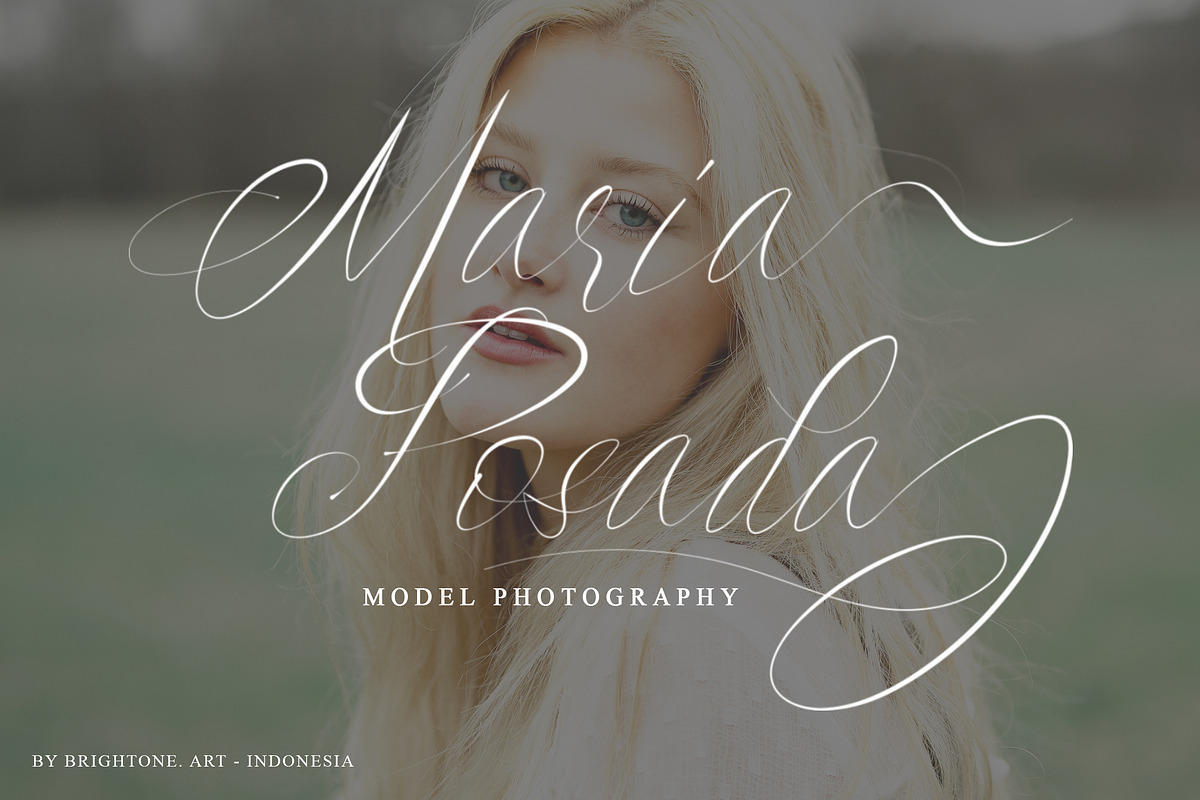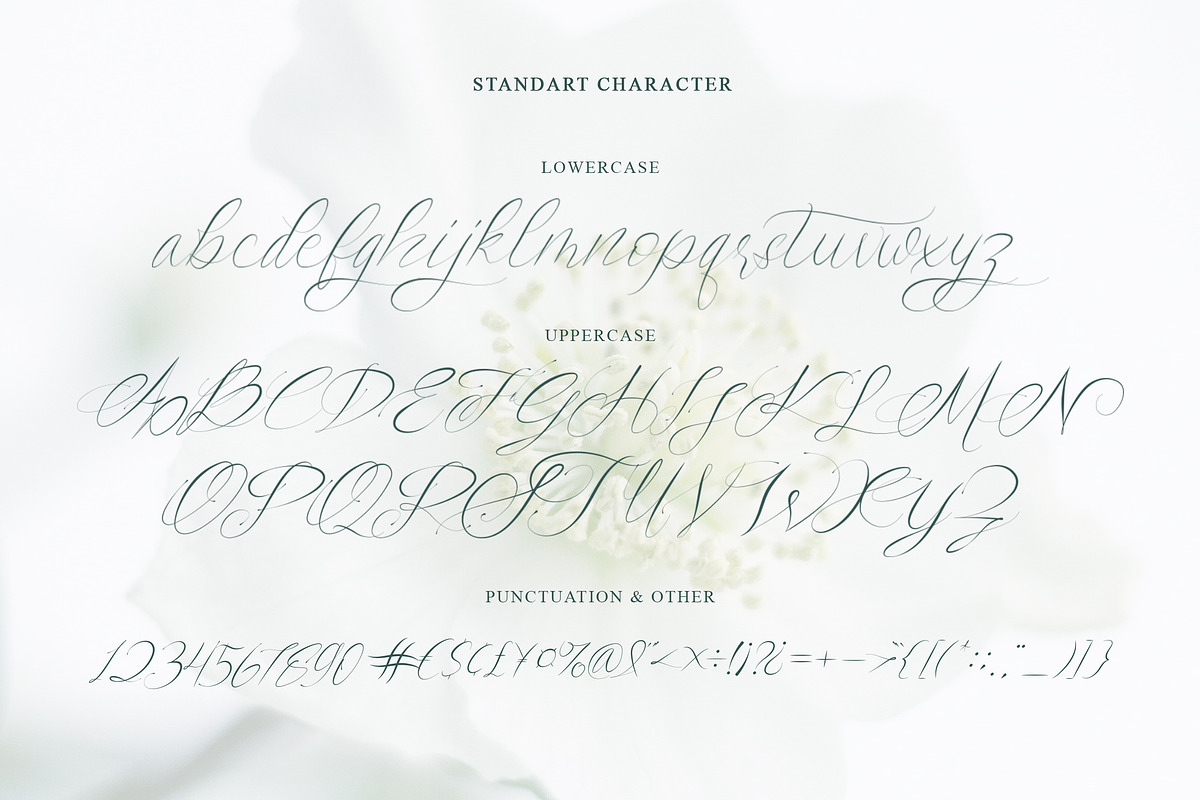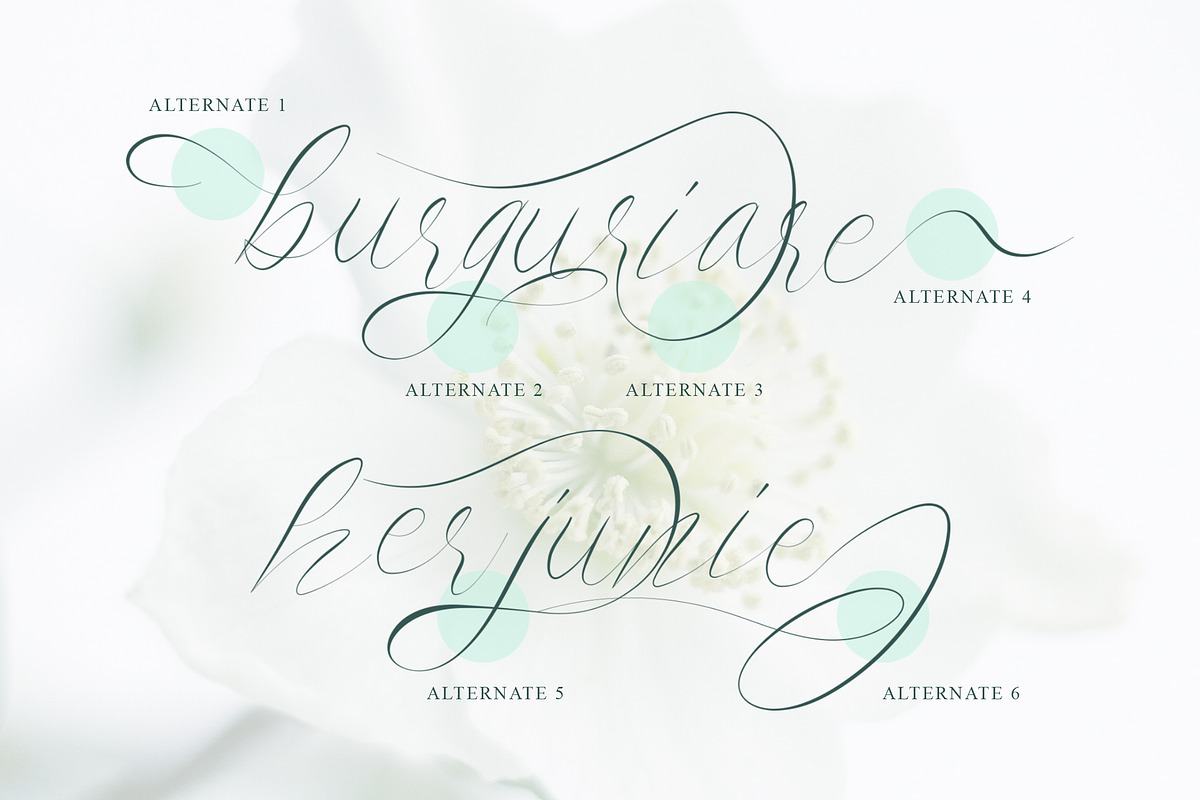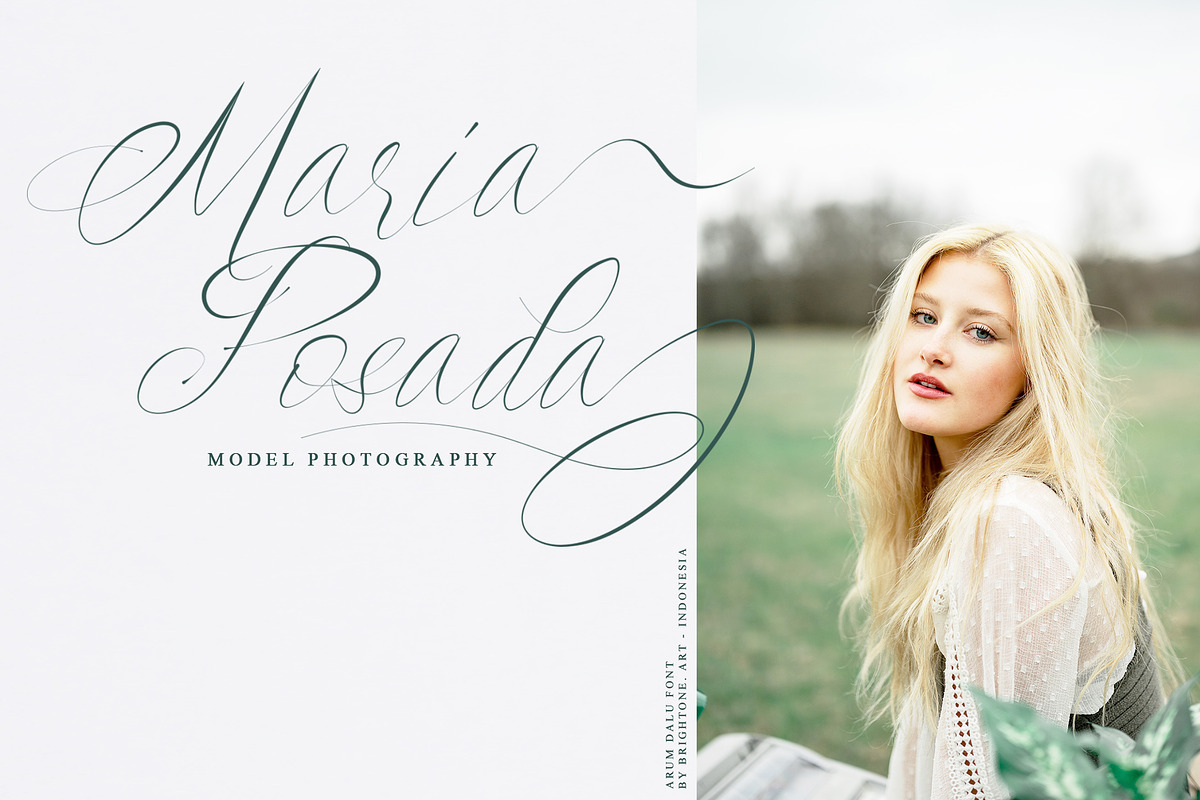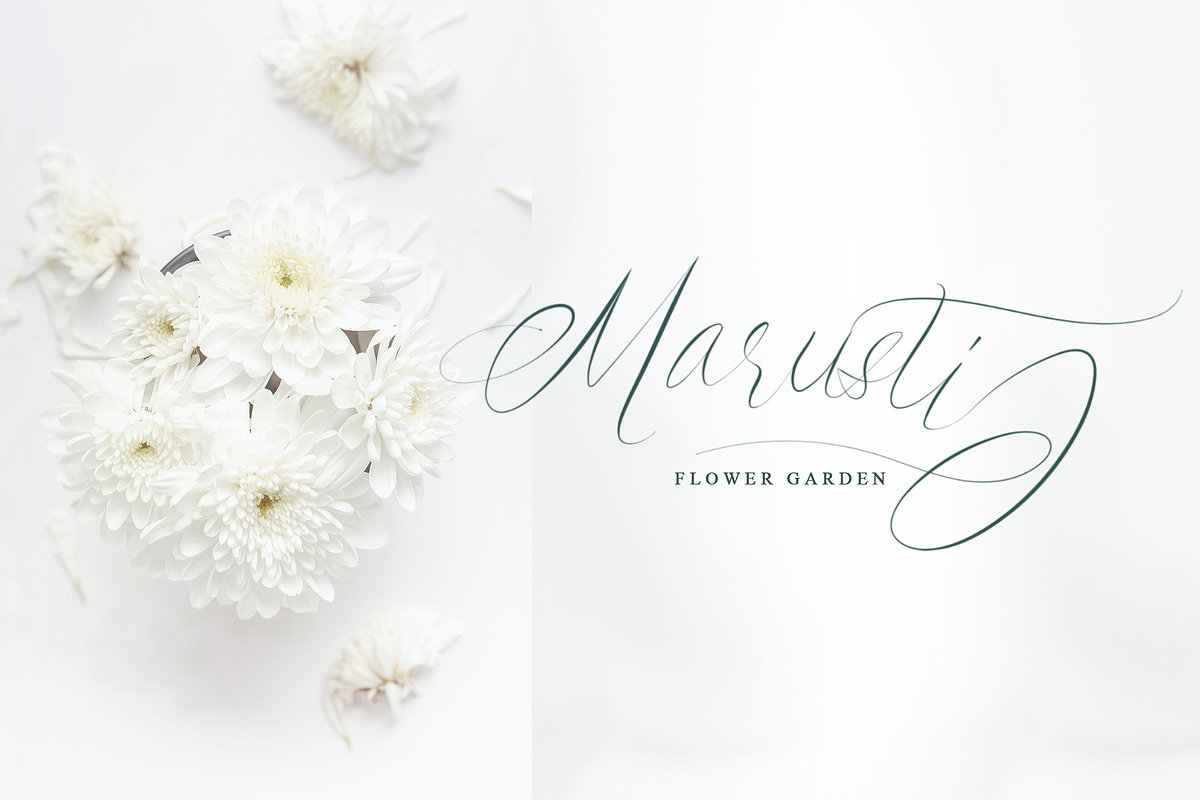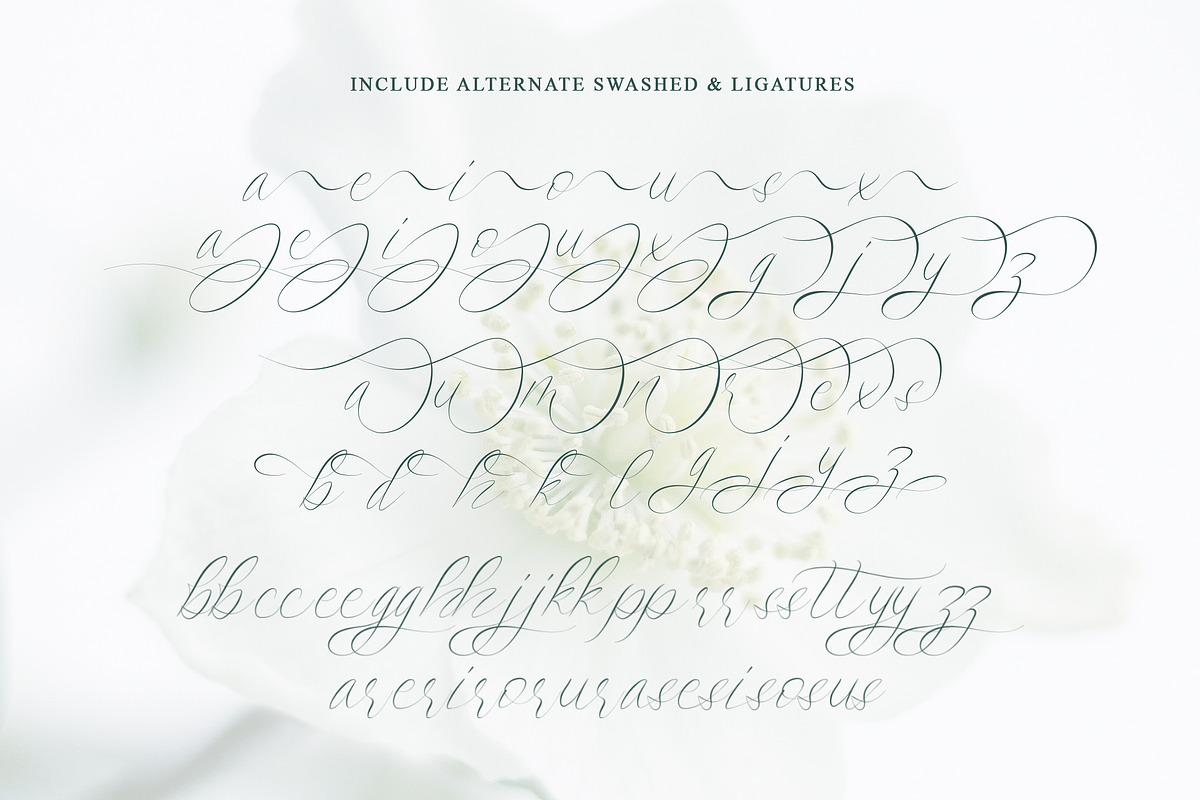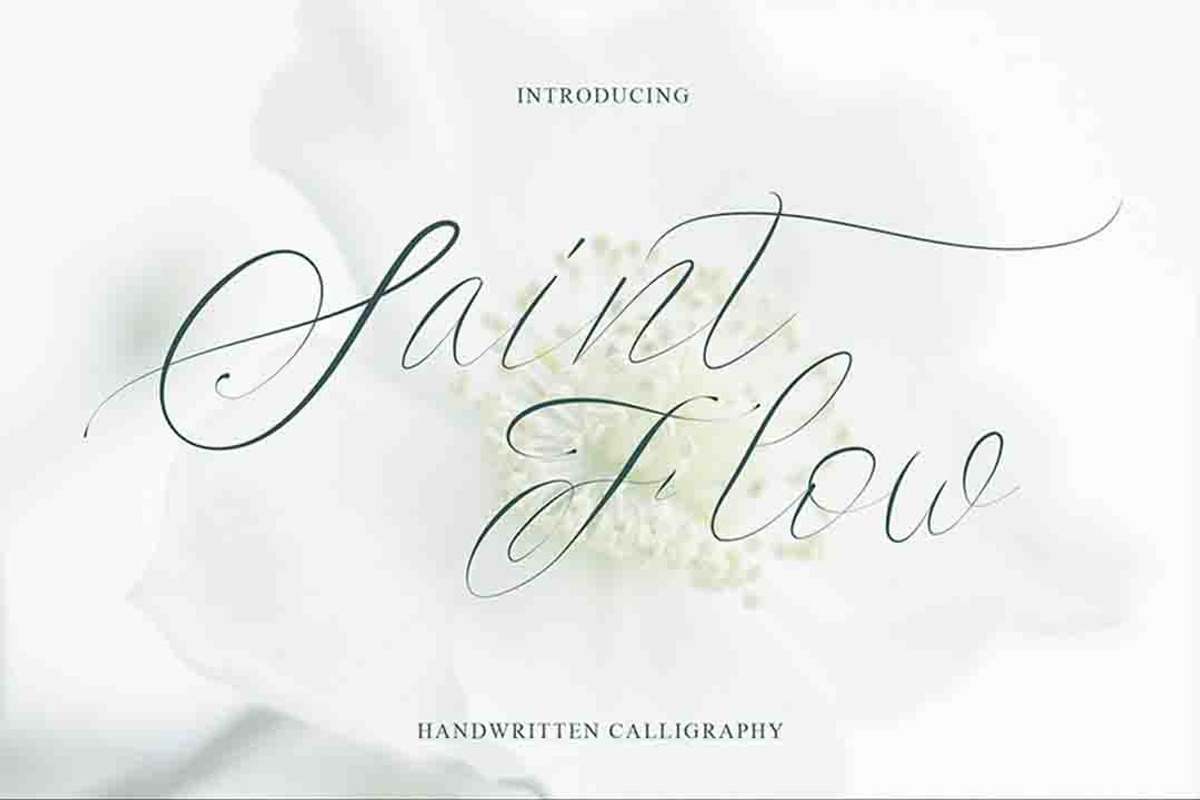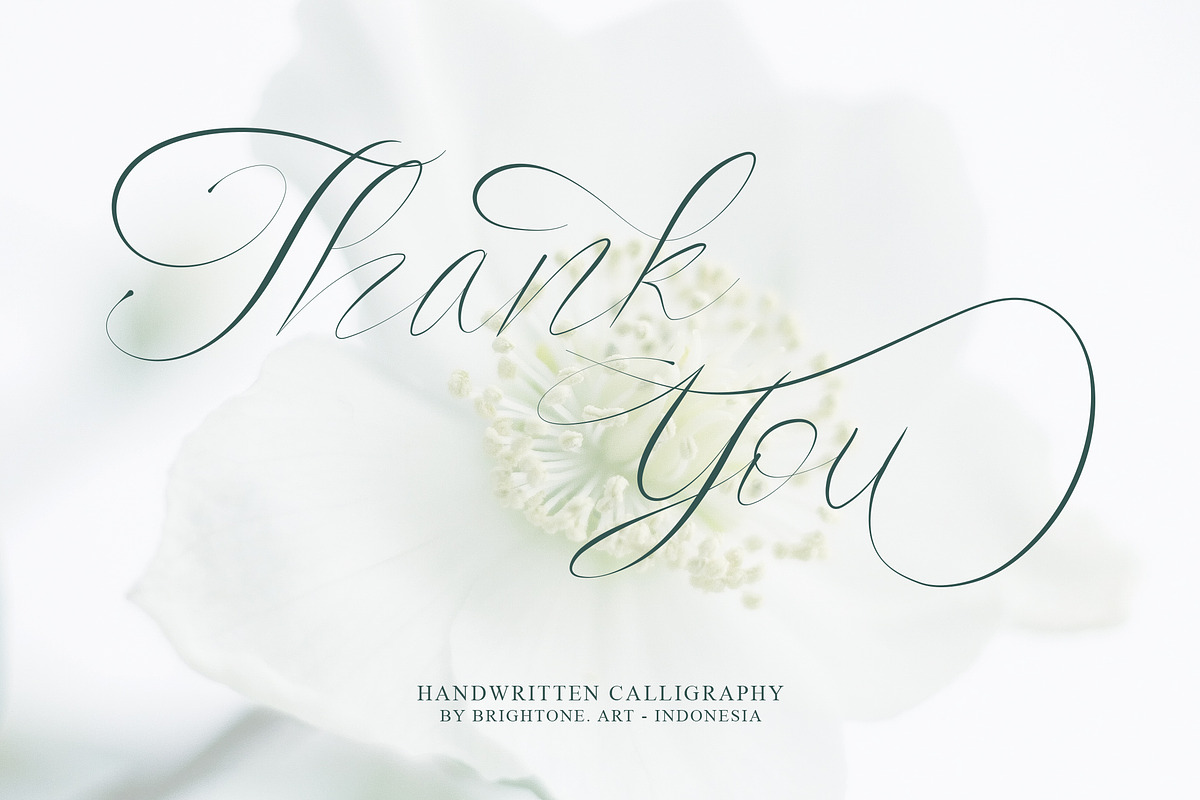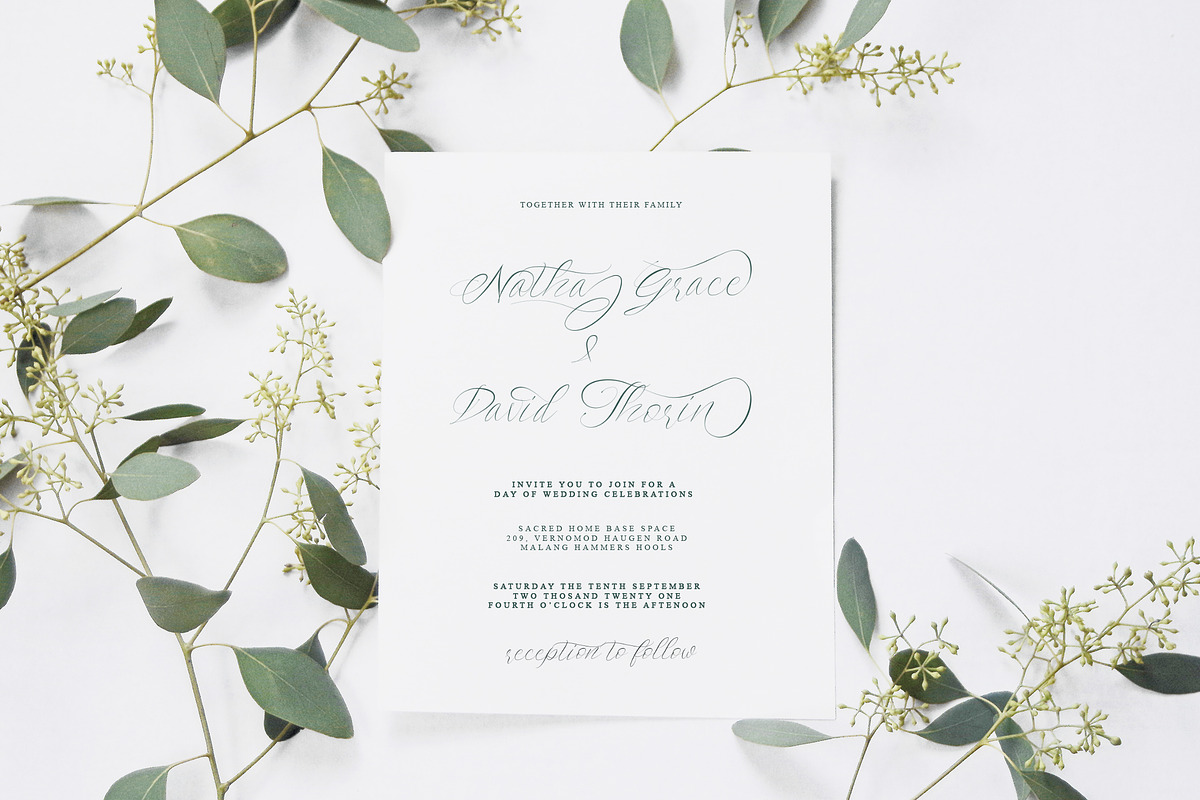
Saint Flow - Beauty handwritten
SAINT FLOW is script handwritten font with classy style and lovely touch, these font includes:
- Uppercase and Lowercase Characters, Numbers and Punctuation.
- Ligatures.
- Multilingual Support (Eastern, Central and Western European countries).
SAINT FLOW font is suitable to use for all purpose for your logo lettering, logo, label, packaging, sticker, branding and many more.